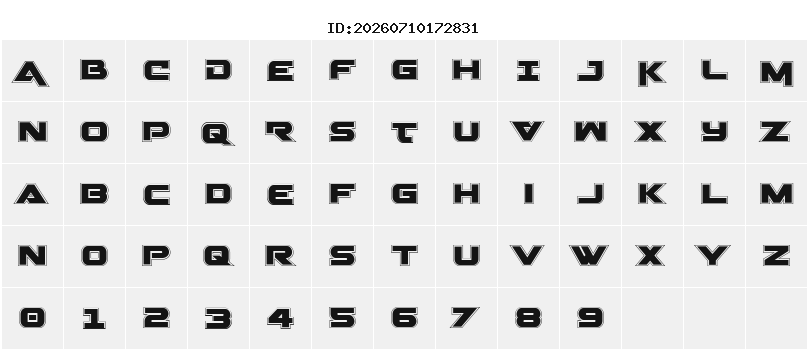
Gemina Academy Preview
• Font Name: Gemina Academy
• Full Font Name: Gemina Academy Regular
About Gemina Academy.ttf
Gemina Academy.ttf is a modern, elegant sans-serif font designed for ultimate readability and visual harmony. Perfect for branding, headlines, web design, and print materials.